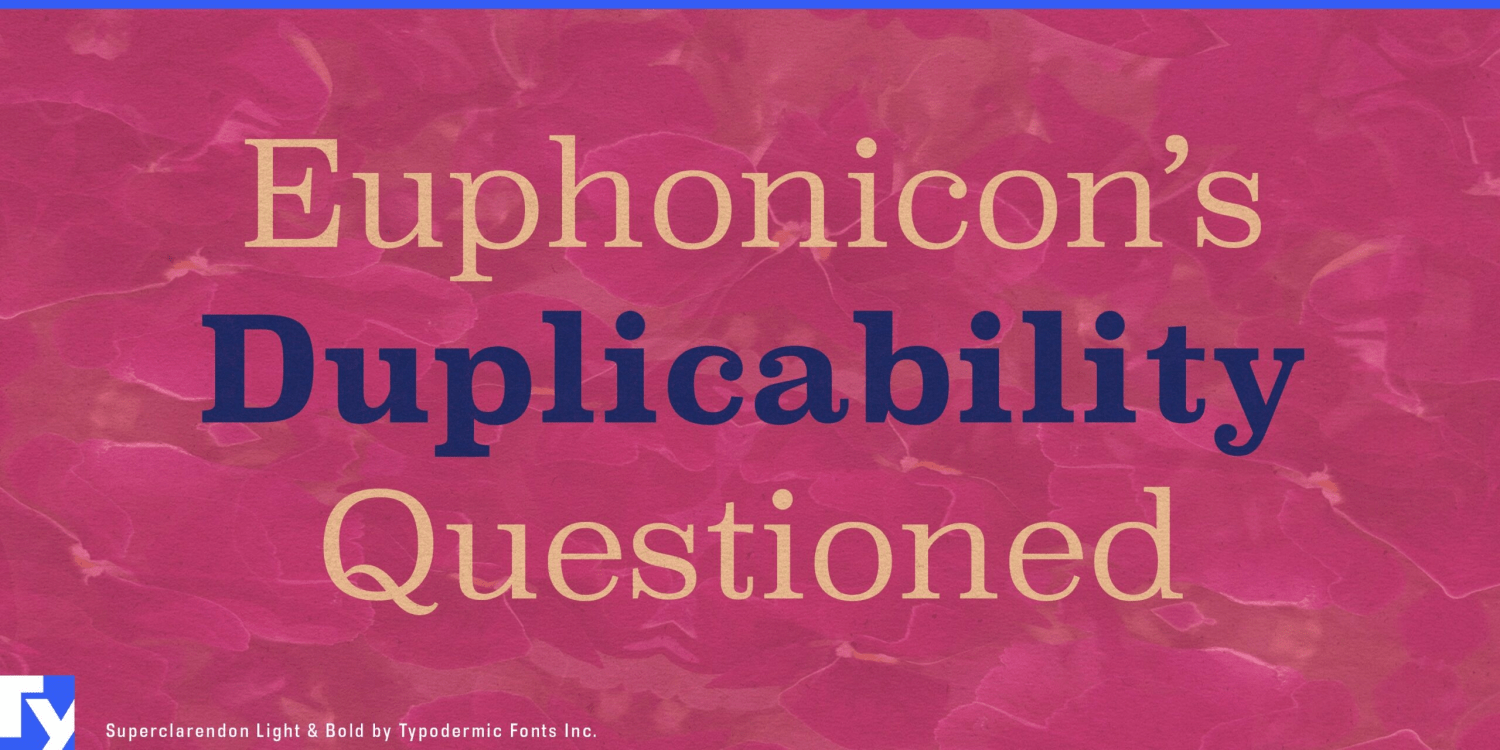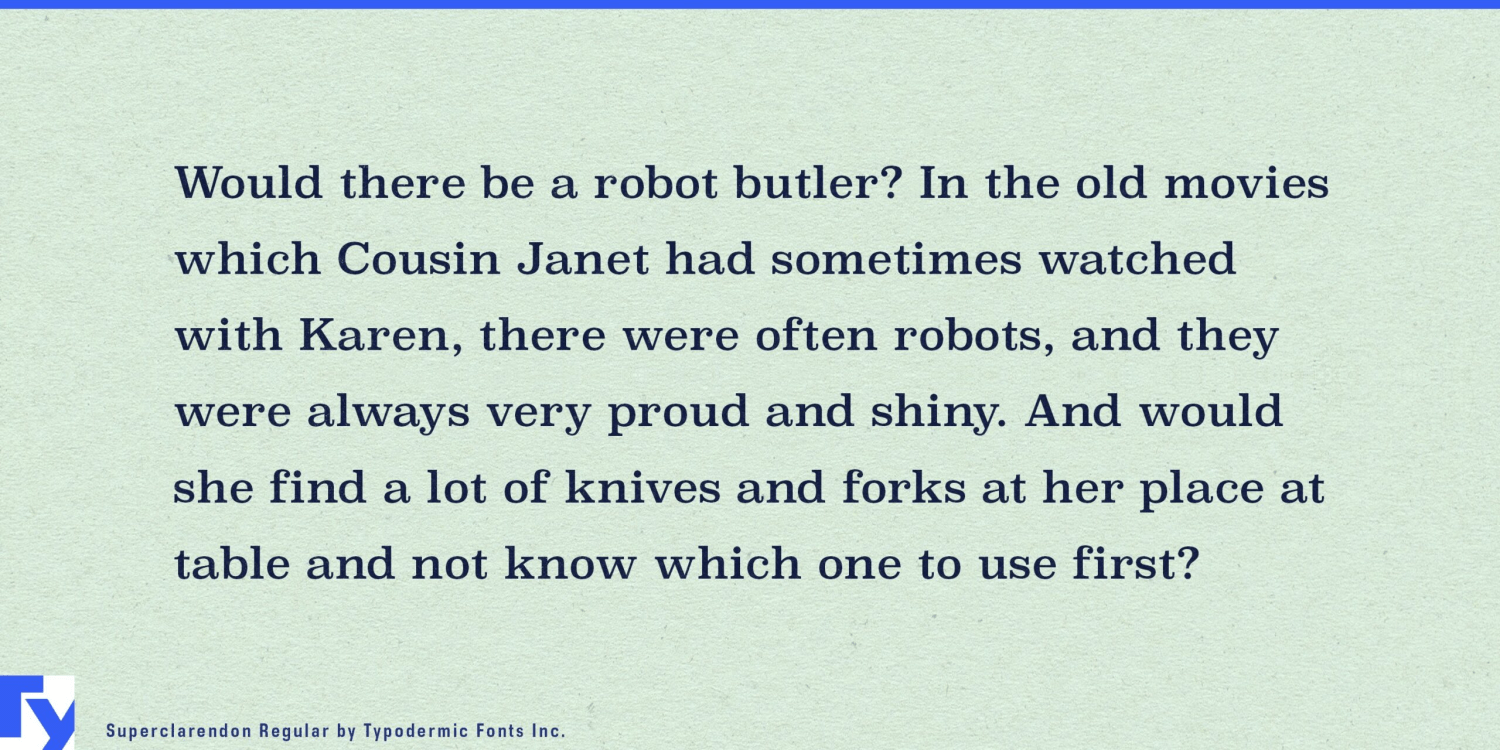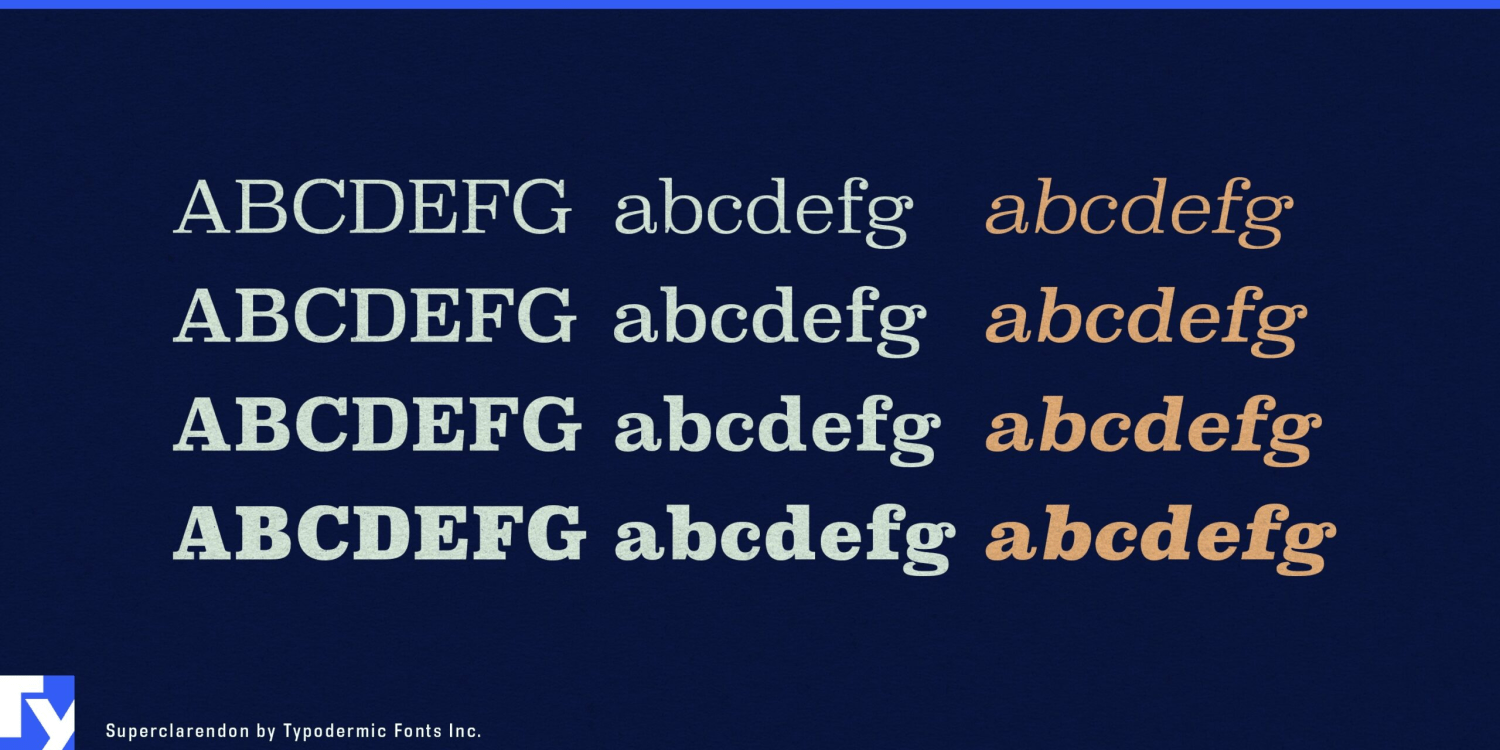
About Superclarendon
Superclarendon isn’t just a typeface—it’s a typographic time machine with rocket boosters. This powerhouse font bridges the gap between 19th-century gravitas and 21st-century swagger, delivering a visual punch that resonates across centuries.…